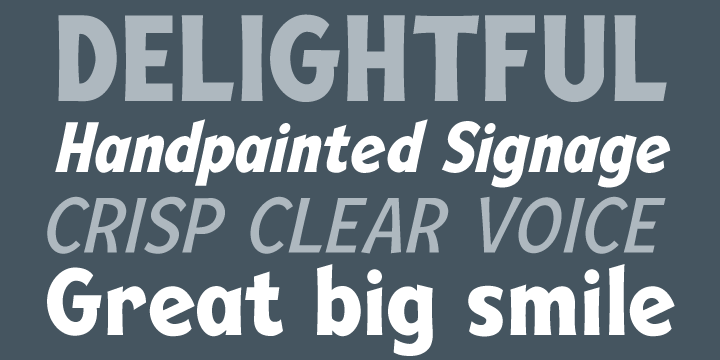
The Mingler Font is a fantastic choice for a wide array of design applications that aim for a friendly, modern, and highly approachable aesthetic. Imagine it bringing a playful yet refined touch to children's book illustrations, adding a whimsical charm to event invitations, or providing a warm and inviting feel to artisan product packaging. Its handcrafted appearance also makes it ideal for blog branding, personalized stationery, social media graphics, and any project where a sense of bespoke creativity and heartfelt appeal is desired. This font excels in environments that prioritize a human touch and a distinctive, engaging personality.
What makes Mingler Font so exciting is its delightful blend of informal elegance and thoughtful design. It often features charming irregularities and subtle hand-drawn qualities that give it a unique, organic feel, setting it apart from more rigid, geometric typefaces. Despite its distinctive character, it maintains excellent legibility, ensuring that your message is conveyed clearly while still captivating the eye. This harmonious combination of artistic flair and practical readability makes it an engaging and versatile choice for designers looking to infuse warmth and individuality into their work.
The Mingler Font family is typically designed to offer a practical range of styles that enhance its unique character. While it might not have the extensive weight variations of a corporate sans-serif, you'll often find options like Regular, Bold, and sometimes even a charming Italic or a complementary display style. These variations allow designers to create depth and emphasis within their layouts while maintaining the consistent, endearing qualities that define Mingler Font. Each style within the Mingler Font family maintains its distinctive handcrafted appeal, ensuring a cohesive and charming aesthetic across all your projects. Discover its unique personality today – Mingler Font Free Download is available now!